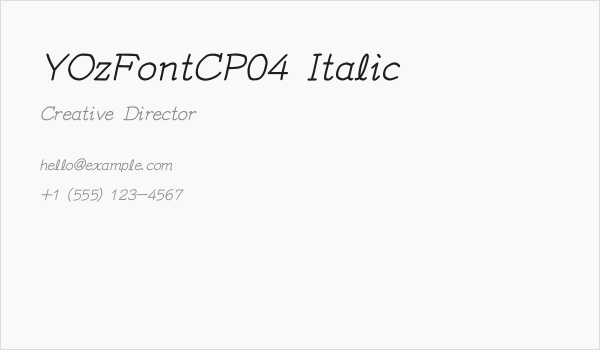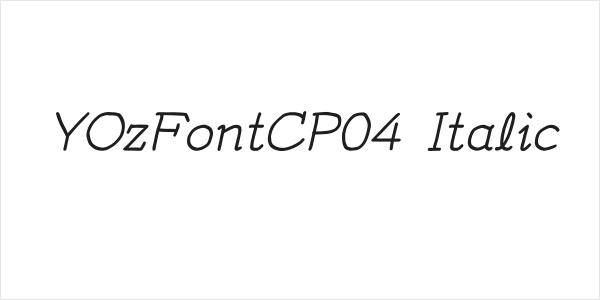
YOzFontCP04 Italic Font
YOzFontCP04 Italic Description
This elegant italic font features a smooth, flowing style that conveys a sense of sophistication and grace. The characters are slightly slanted, enhancing the dynamic and fluid appearance. Each letter is crafted with a consistent stroke width, providing a harmonious and balanced look. The uppercase letters are tall and slender, while the lowercase letters maintain a uniform height, ensuring readability. The numerals are clear and distinct, complementing the overall aesthetic. Special characters are thoughtfully designed, maintaining the font's cohesive style. This font is ideal for projects that require a touch of elegance and refinement.
| Use Case | Headlines, Invitations, Branding |
| Proposed Projects | Ideal for wedding invitations, luxury branding, elegant packaging, and editorial design. |